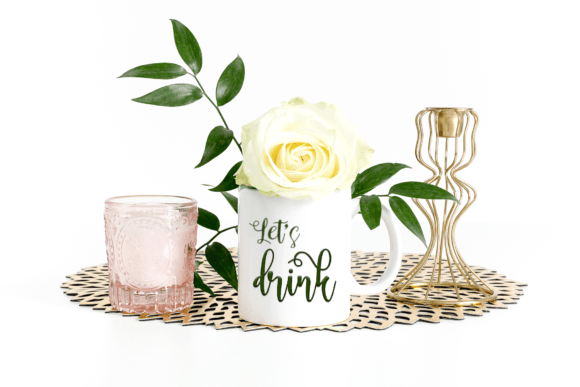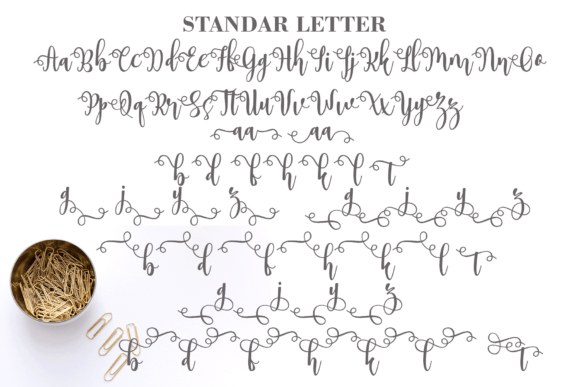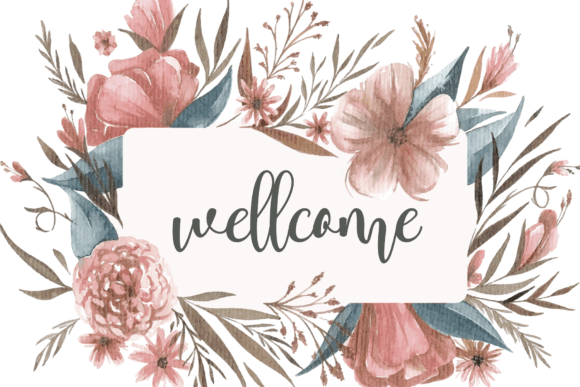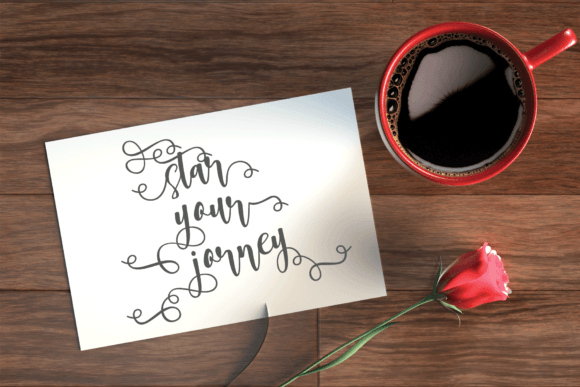
Introduction to Myhope Font
As you sit down to plan the perfect wedding invitation, birthday card, or elegant branding project, you know the key to making it truly special lies in the details. It’s the subtle touch of a handwritten note, the delicate flourish of a custom design element, that sets your project apart from the rest. And that’s exactly where the Myhope Font comes in – a romantic, stylish, and beautifully flowing handwritten font that’s sure to add a personal touch to any creative project.
Whether you’re a seasoned designer or a DIY enthusiast, the Myhope Font is a valuable resource that’s sure to elevate your design game. With its high-quality design and transparent background, it’s the perfect addition to any free download collection. And with its PUA encoding, accessing all the glyphs and swashes is a breeze, making it a must-have for any design project.
Key Features of Myhope Font
- High-quality, elegant design perfect for creative projects requiring a sophisticated touch.
- Designed as a versatile design resource, suitable for a wide range of creative projects, from logos to typography-based art.
- Unique, hand-crafted design elements that set it apart from generic fonts, making it an ideal choice for designers seeking a distinctive look.
Honest Review: Myhope Font
As a designer, I’m always on the lookout for high-quality design resources to enhance my creative projects. Recently, I came across the Myhope Font, and I’m excited to share my honest review with you.
✨ One of the standout features of the Myhope Font is its versatility. It’s perfect for a wide range of creative projects, from graphic design to digital art. The font is also available for free download, making it an excellent addition to any design resource library.
✨ The Myhope Font has a beautiful, elegant design that’s sure to elevate any project. Its high-quality design makes it a great choice for designers who want a professional-looking font without breaking the bank.
⚠️ One potential limitation of the Myhope Font is its limited number of styles. While it’s available in multiple weights, it may not be suitable for projects that require a wide range of font styles.
Overall, I’m impressed with the Myhope Font. Its high-quality design, versatility, and free download make it an excellent choice for designers. While it may have some limitations, it’s a great addition to any design resource library.
Recommendation
- Available in multiple weights
- Perfect for graphic design, digital art, and more